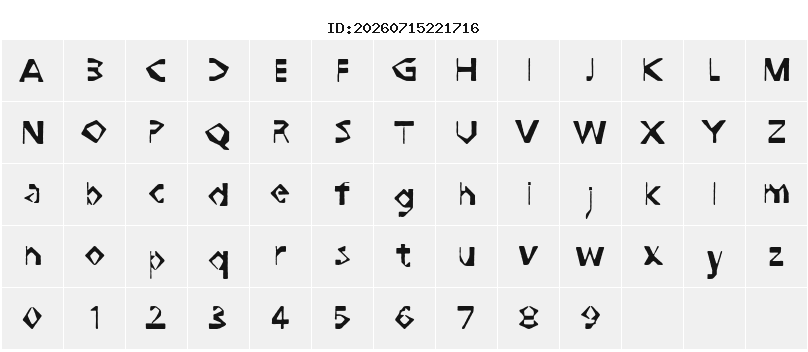
Assuri Preview
About Assuri.ttf
Assuri.ttf is a modern, elegant sans-serif font designed for ultimate readability and visual harmony. Perfect for branding, headlines, web design, and print materials.